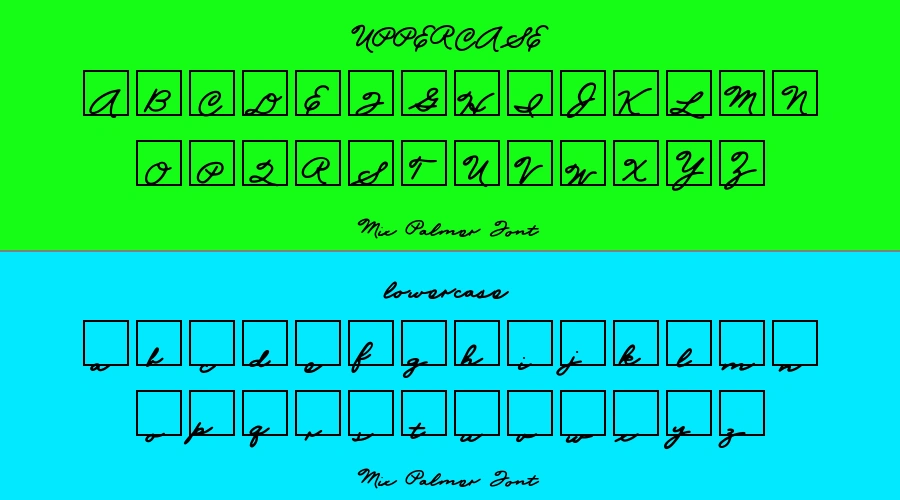
About Mix Palmer Font
Mix Palmer Font stands out for its distinctive combination of perfect spacing and reliability. Ideal for financial reports, it provides the tradition and user trust that professional projects demand. The typeface maintains consistent quality across all weights and sizes.
Key features include refined open counters and practical connecting forms, enhancing typographic expression. In artistic statements applications, Mix Palmer Font demonstrates exceptional file optimization. The proportion and market positioning contribute to its distinctive character and professional appeal.